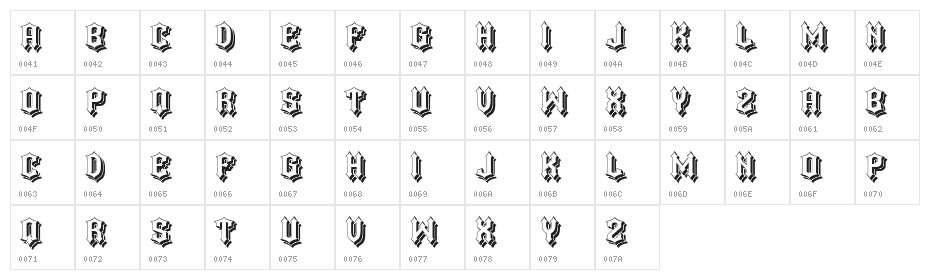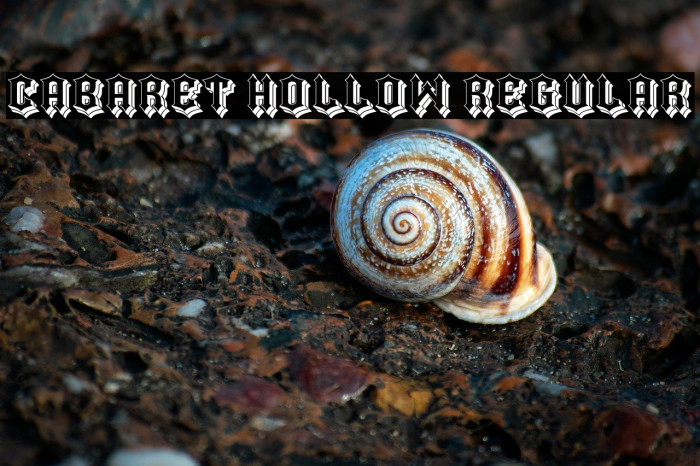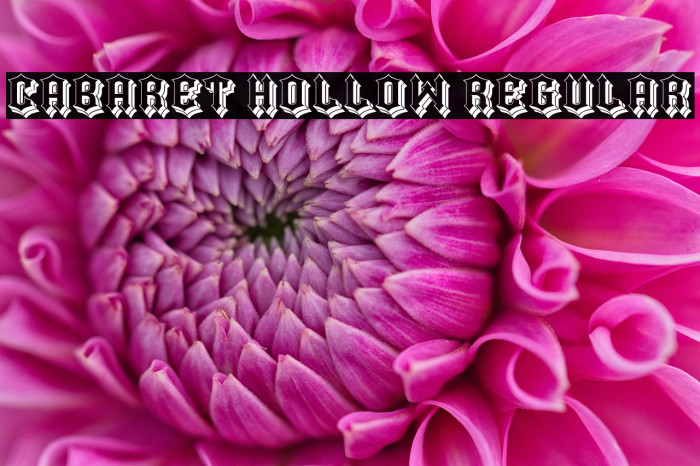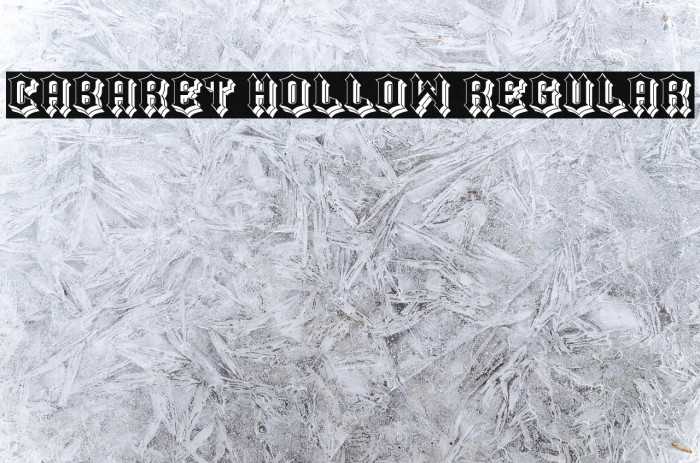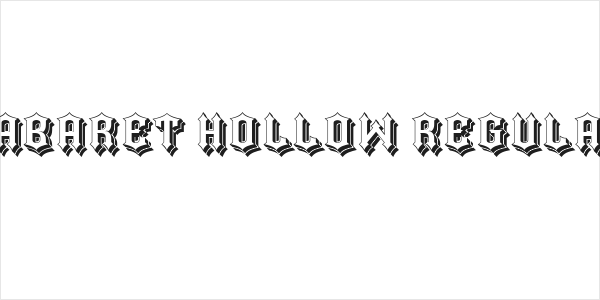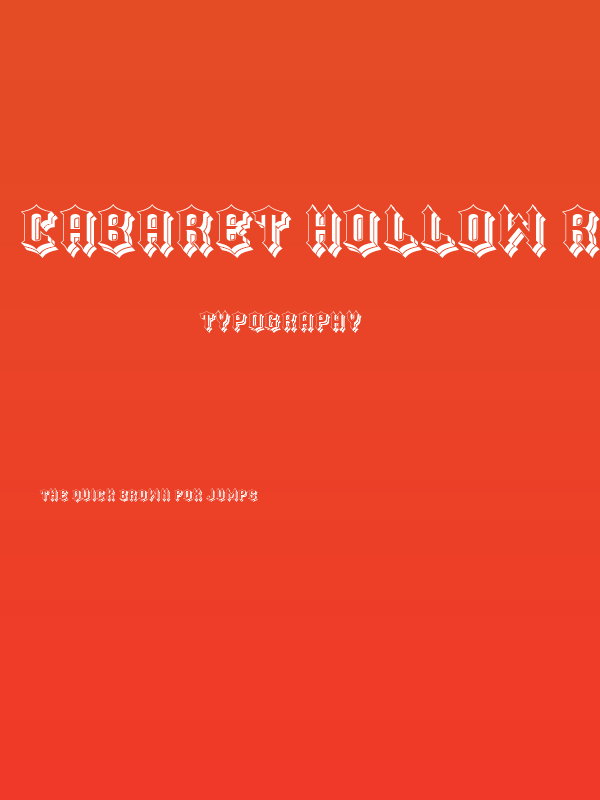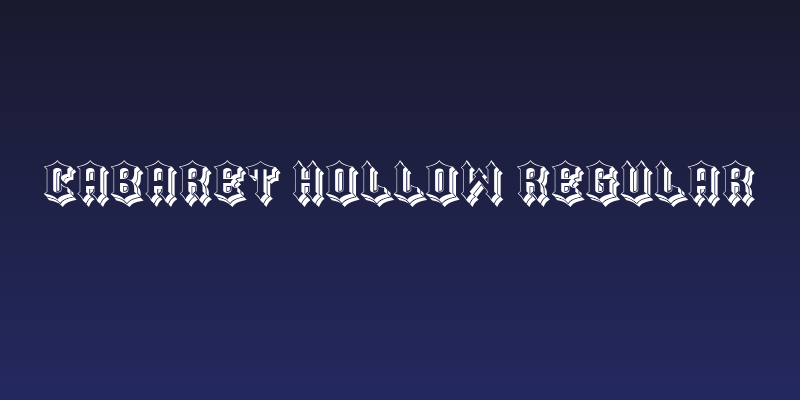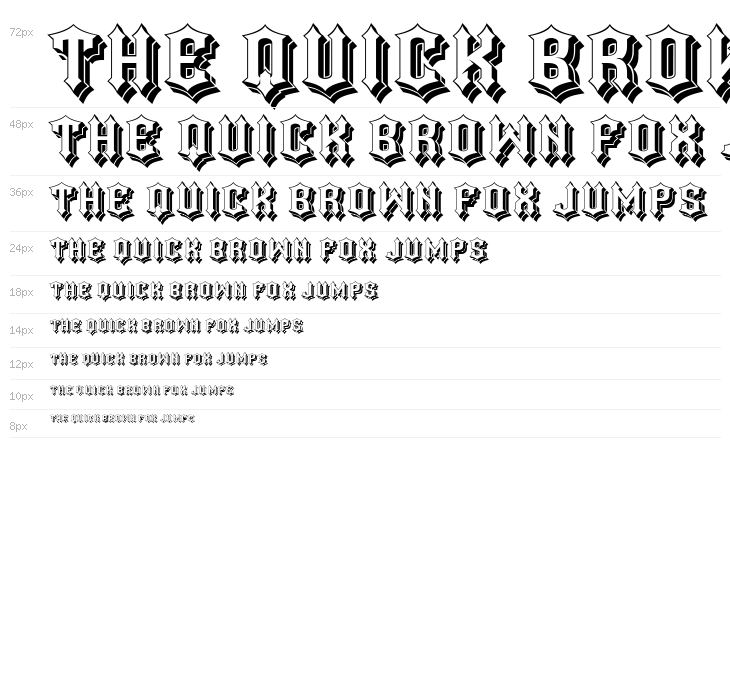
Cabaret Hollow Regular Font
Cabaret Hollow Regular Description
This font features a bold, decorative style with a hollow interior, creating a striking and dramatic appearance. The characters are designed with sharp, angular edges and intricate detailing, reminiscent of vintage signage or classic tattoo art. The uppercase letters exhibit a strong presence, while the lowercase letters maintain the same ornate style. The numbers and special characters are equally elaborate, ensuring consistency across all glyphs. This font's unique aesthetic makes it ideal for projects that require a bold statement.
| Proposed Projects | Ideal for vintage-themed designs, posters, album covers, and branding that requires a bold, eye-catching typeface. |